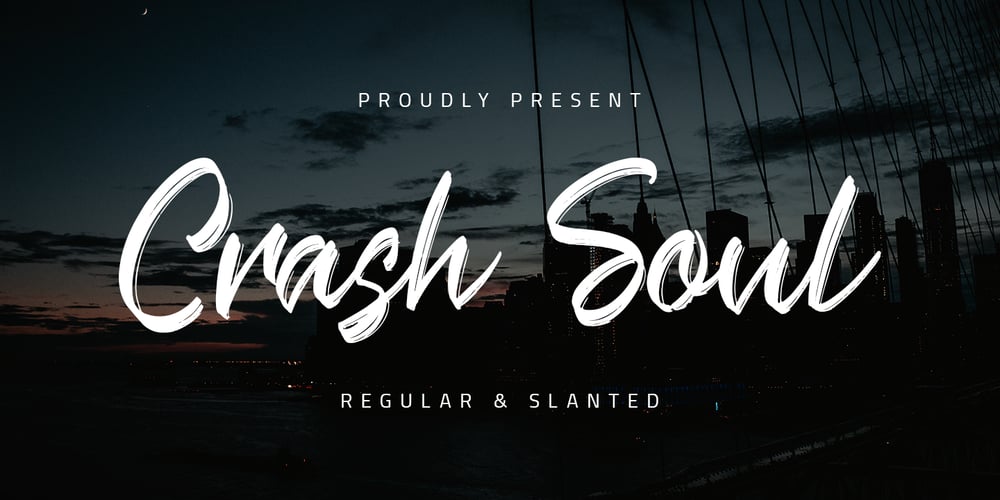
Crash Soul Font Family was designed by Abdul Malik Wisnu and published by Almarkha Type. Crash Soul contains 1 styles and family package options. Introducing Crash Soul – Handwritten brush is a brush script that is written casually and quickly. Letters are made with brushes on paper. Then scanned and carefully drawn into vector format. That is why Crash Soul has charming, authentic and relaxed characteristic more natural look to your text with a more natural look to your text. You can activate Ligature OpenType panel to make these two styles. It also has many alternatives and underlines that make your text and design more interesting.Crash Soul is perfect for homeware designs,branding projects, Logo design, Quotes product packagingWhat’s Included : Standard glyphs Ligatures Web Font Works on PC & Mac Simple installationsAccessible in the Adobe Illustrator, Adobe Photoshop, Adobe InDesign, even work on Microsoft Word. PUA Encoded Characters – Fully accessible without additional design software. Fonts include multilingual supportCheers!Thank You